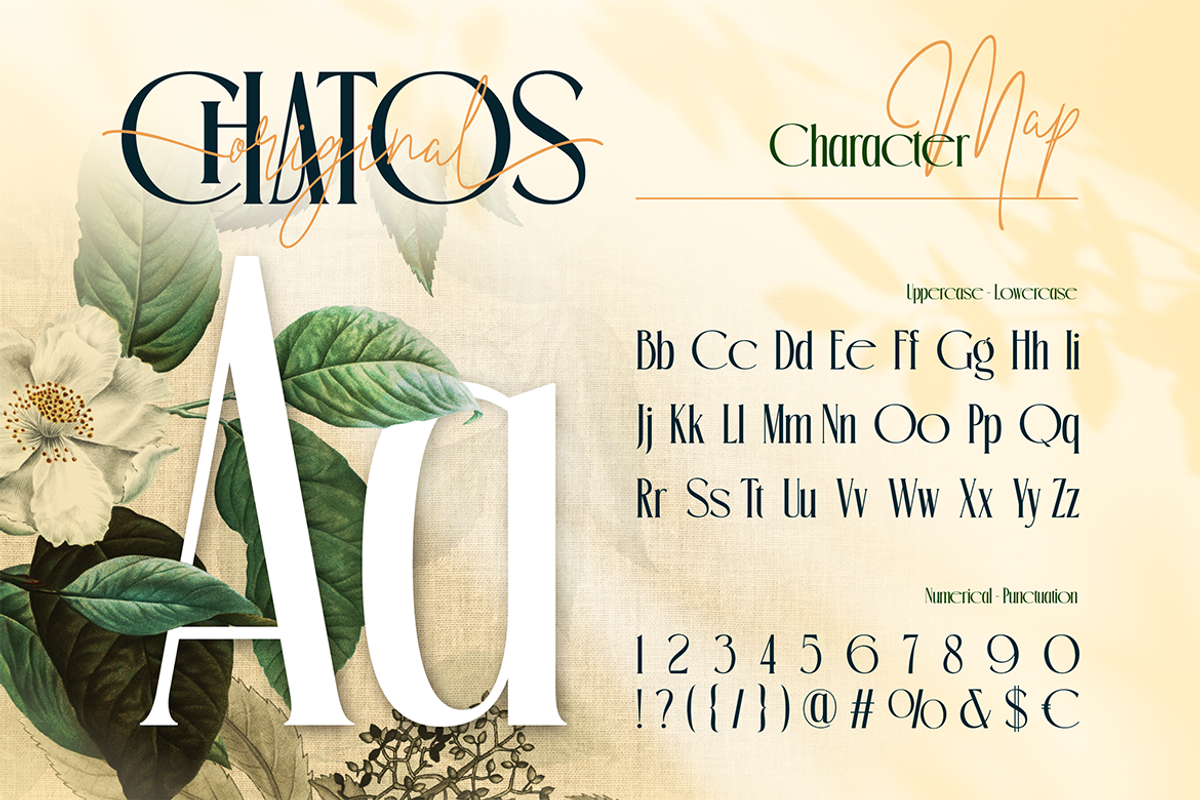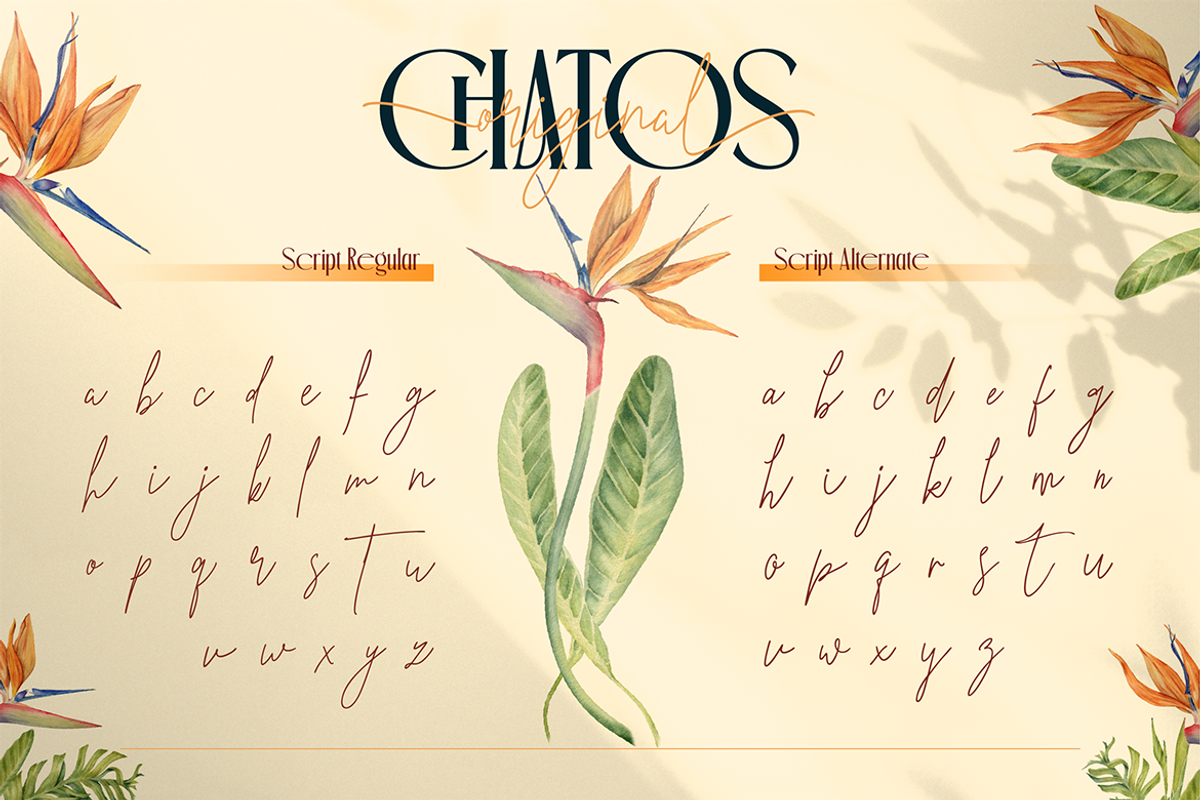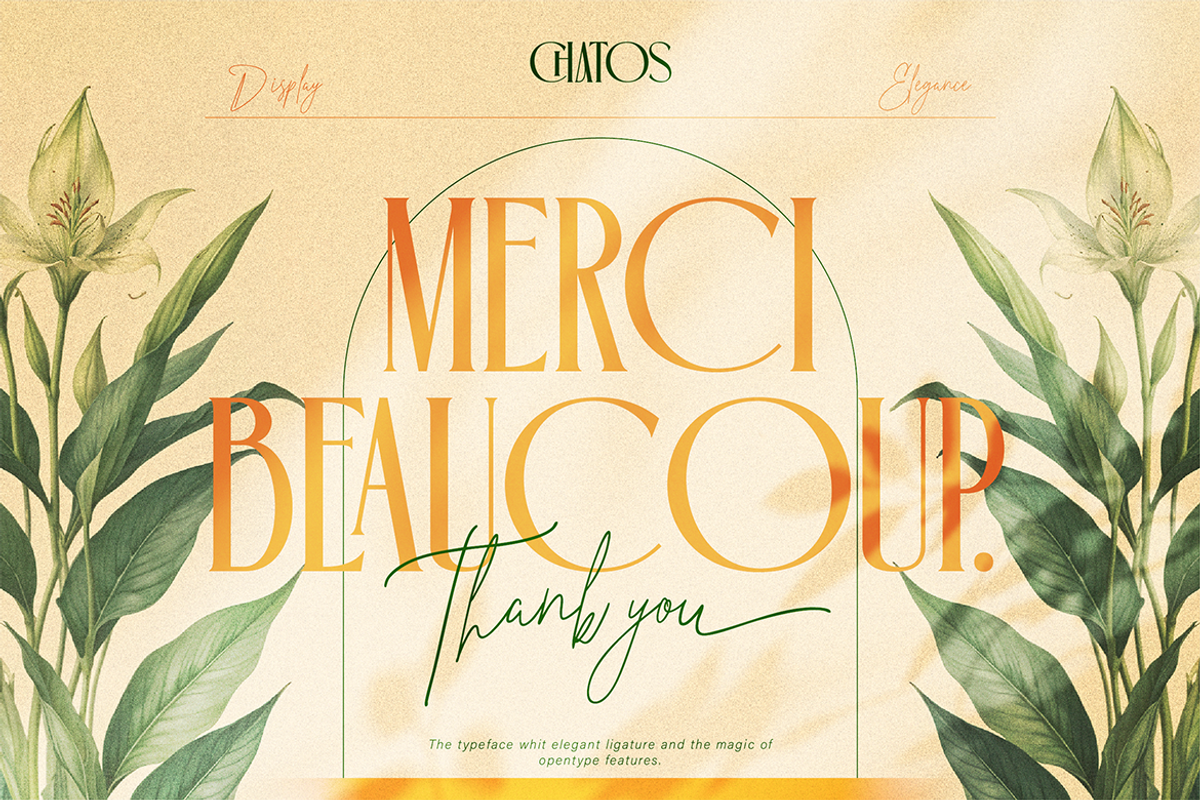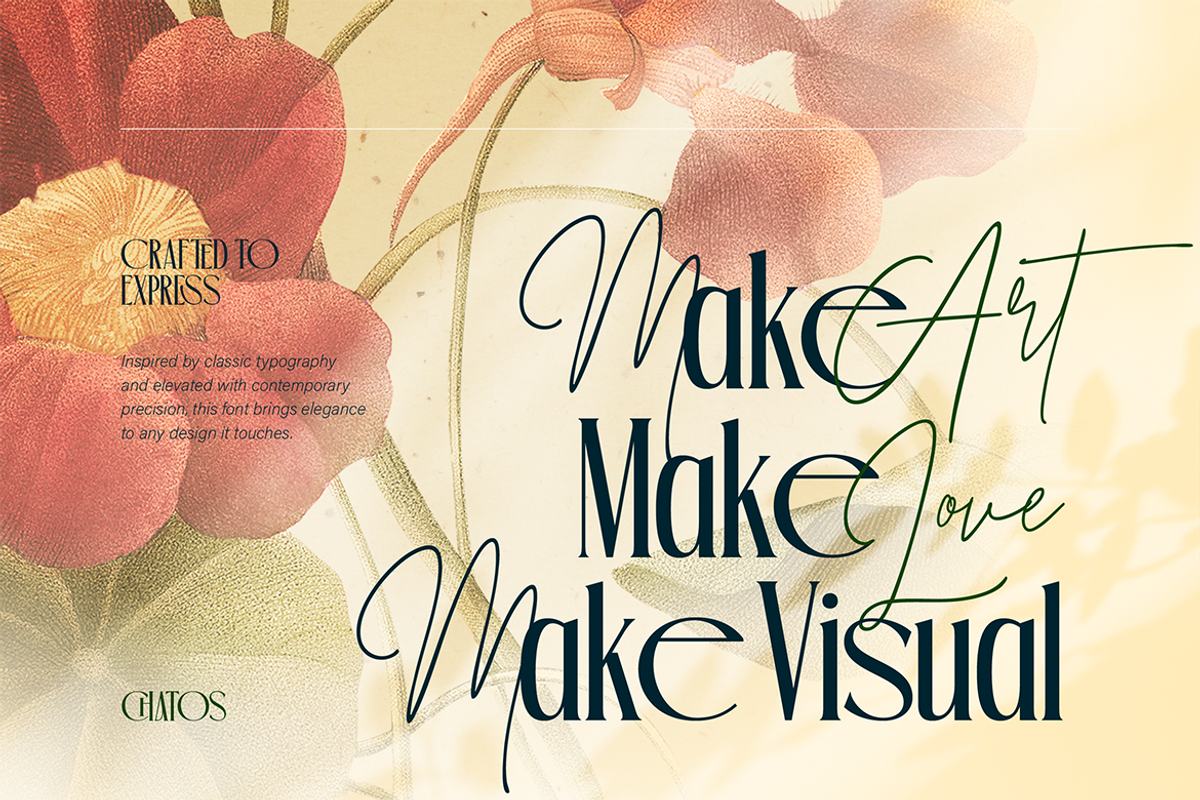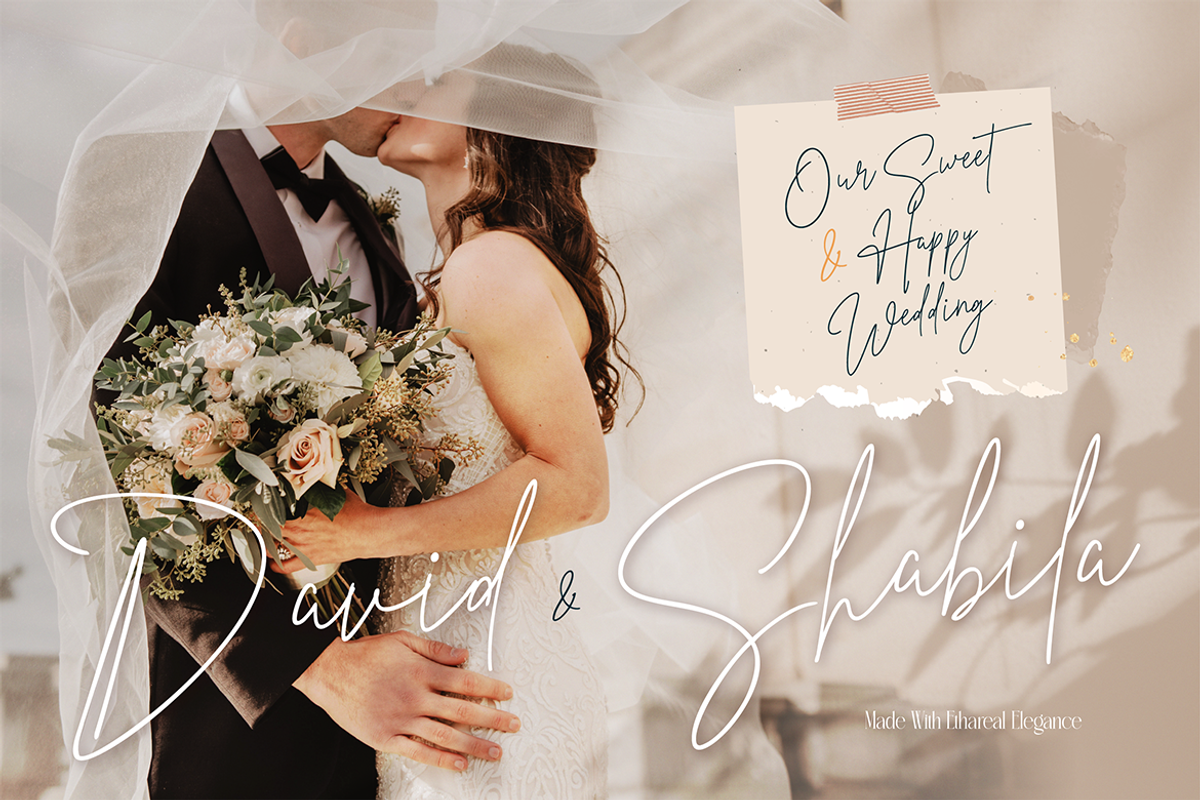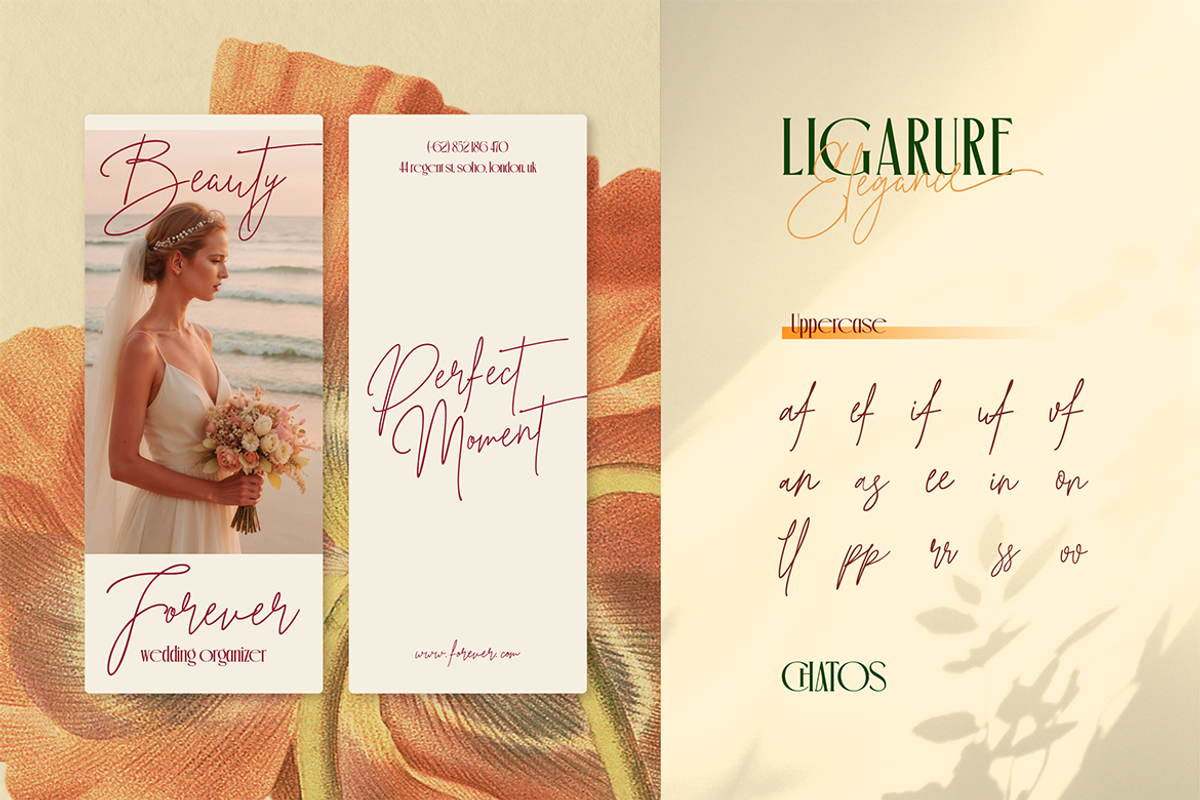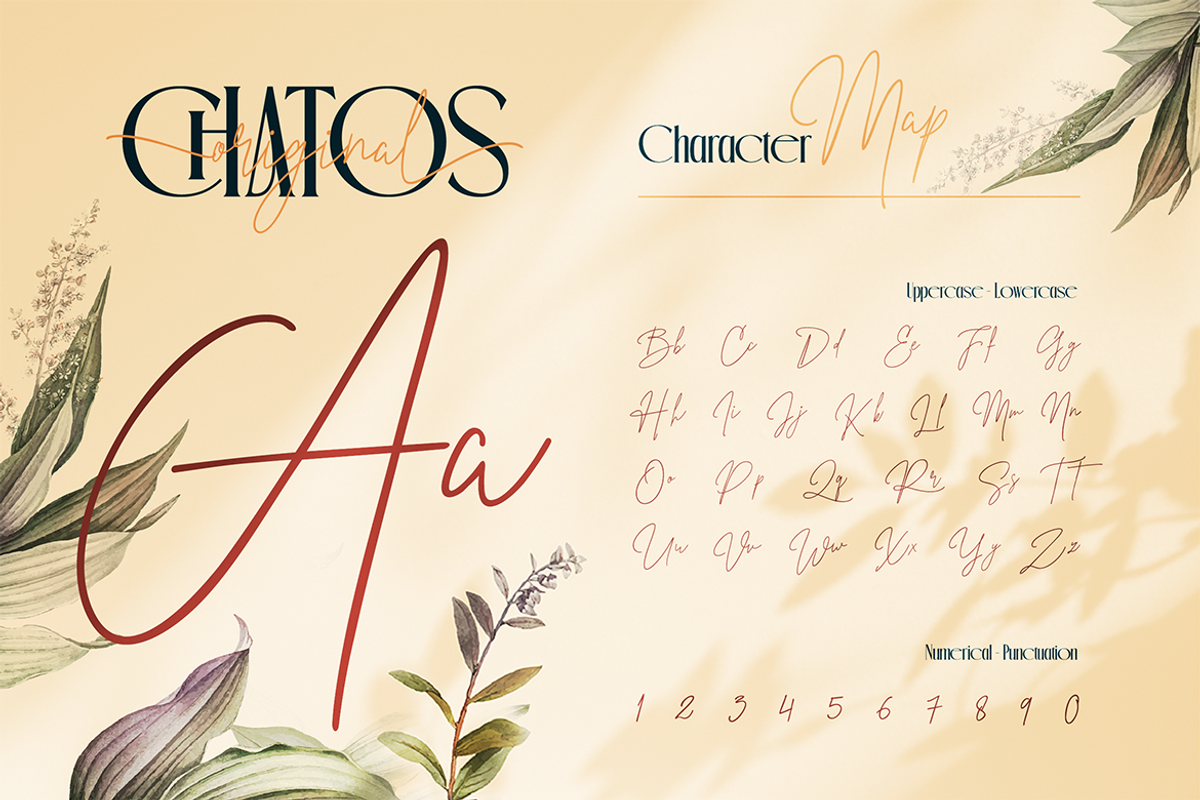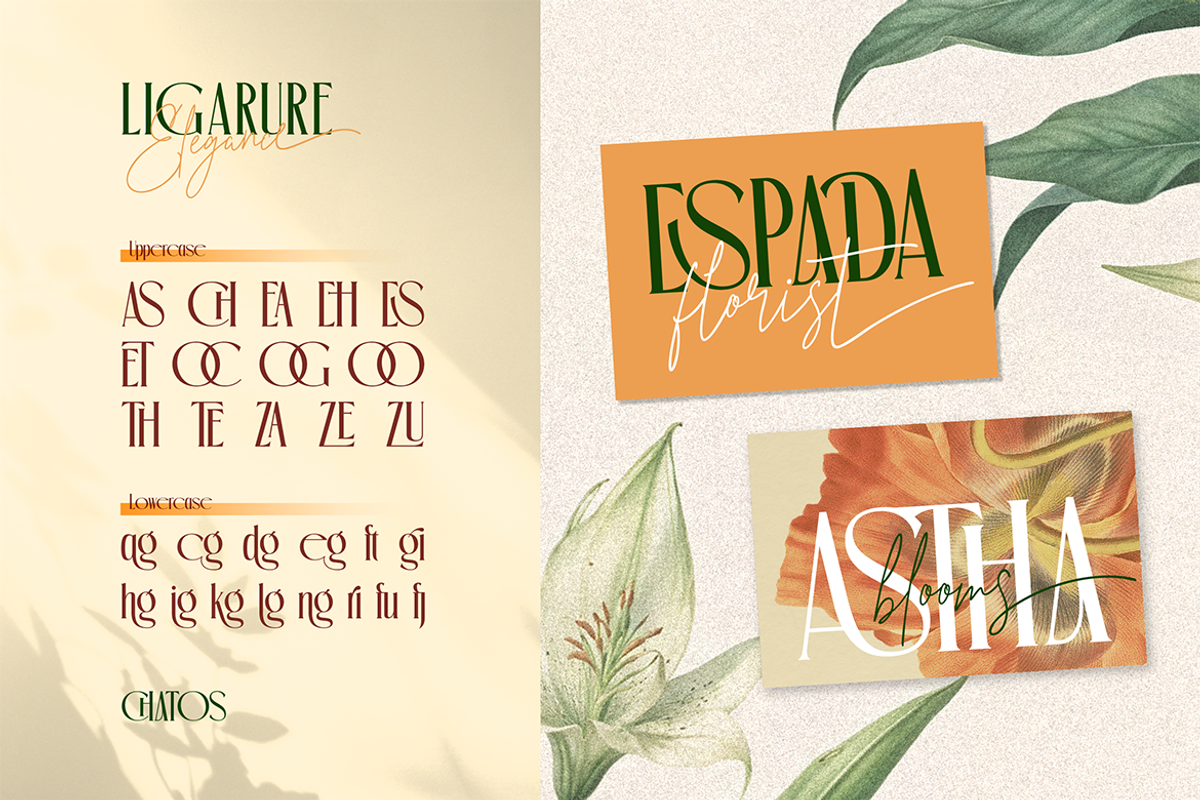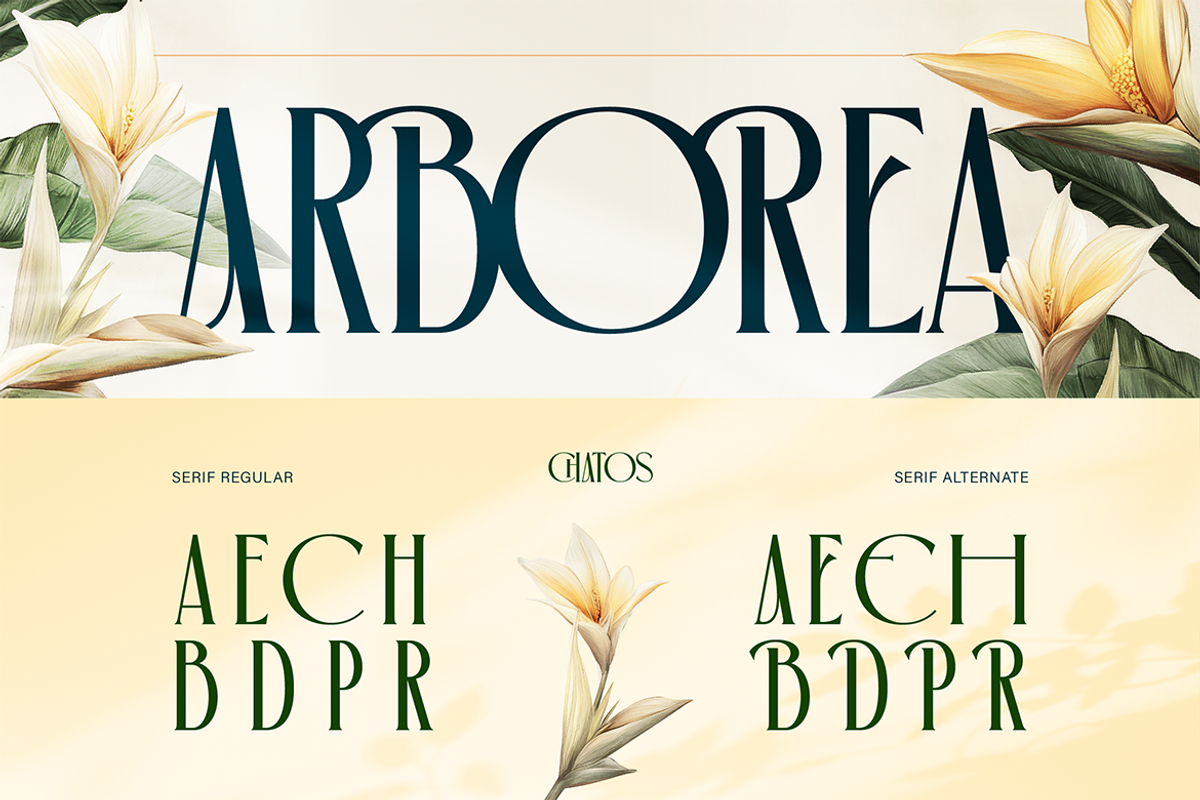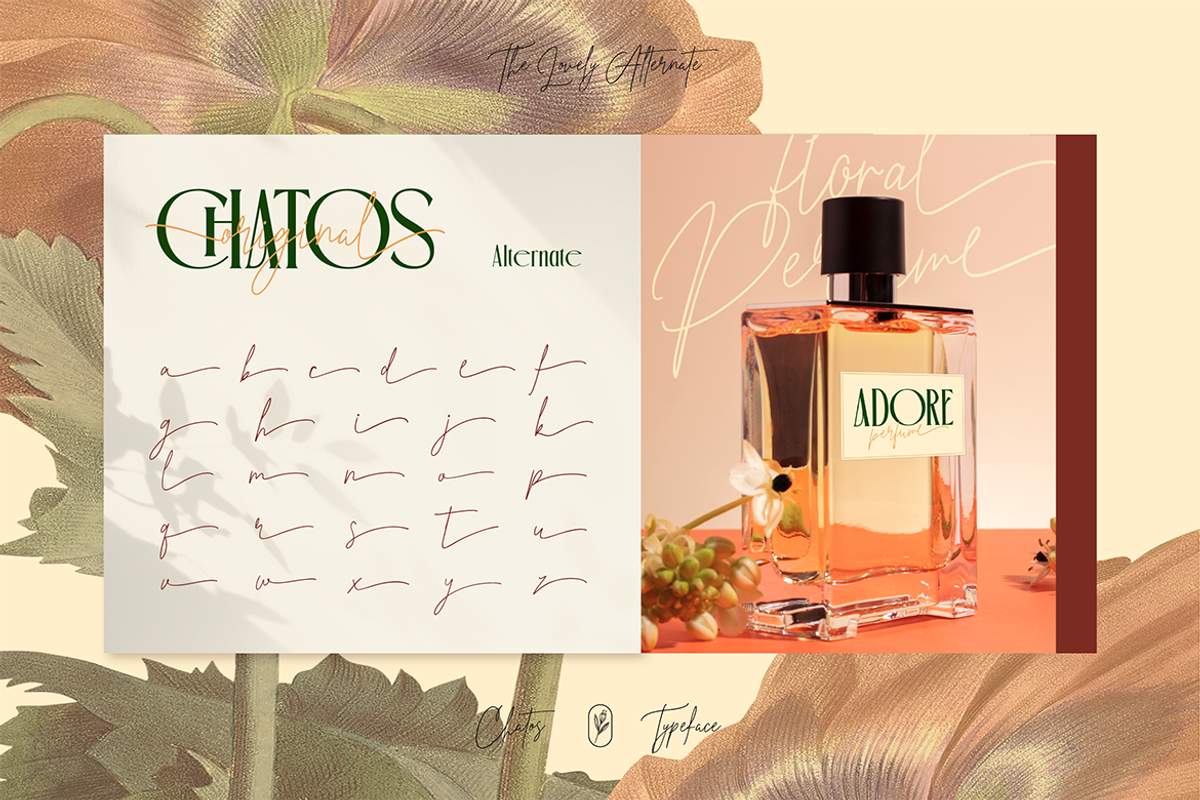
Chatos Original
Chatos Original is a refined duo font that combines an elegant serif with a flowing handwritten script. Designed to work beautifully together, this font brings a timeless, romantic, and artistic feel to any design. The serif style features graceful curves and stylish alternates, perfect for headlines, logos, and editorial layouts. Meanwhile, the script font adds a natural handwritten touch that feels personal and expressive, ideal for signatures, branding accents, and decorative text. With ligatures and OpenType features, Chatos Original allows you to create smooth typography compositions that look premium and well-crafted. This font is inspired by classic elegance with a modern floral aesthetic.
Branding & logo design
Wedding invitations & stationery
Beauty, fashion, and floral designs
Editorial layouts & social media graphics
Product packaging and quotes Chitos helps you create designs that feel elegant, romantic, and visually captivating—effortlessly.
Chatos Original Characters Map